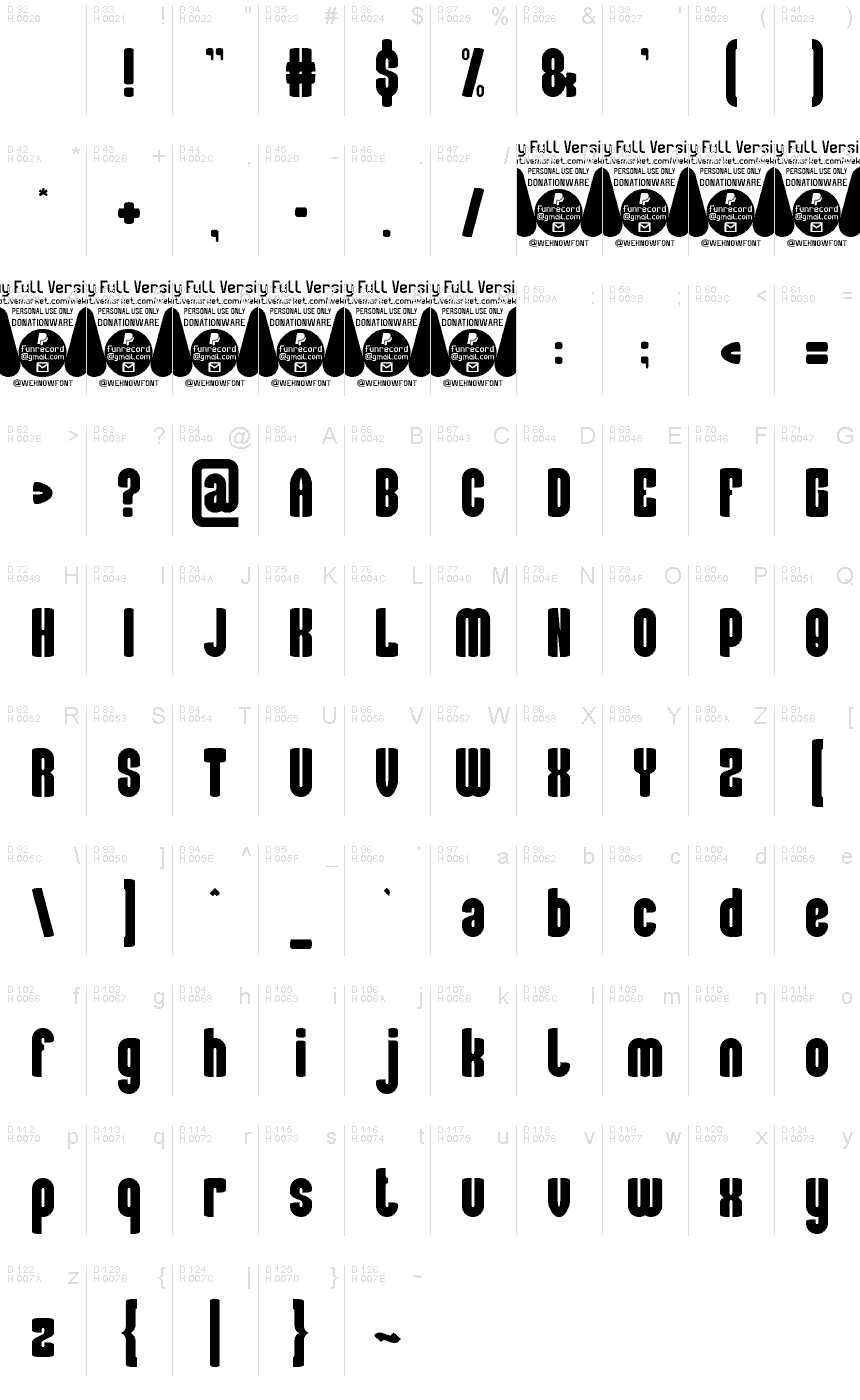
CARTOON ANIMATION
Cartoon Animation font by weknow is a free display font with a vintage-inspired style. It adopts thick condensed curves in its bold letters and maintains a uniform width throughout the characters. Rounded corners appear and accompany the bulky shape of each character, giving the typeface an attractive friendly look to have fun with.
Use Cartoon Animation for animated movie titles, poster designs, online marketing campaigns, packaging designs, children’s books covers or headings, YouTube channels written arts (descriptions and channel art), comic books, or anything else you could think of!